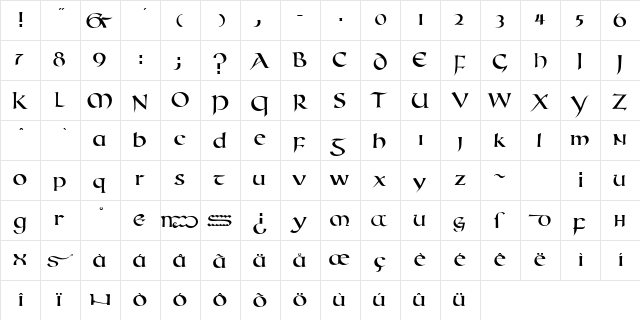
RomanUncialModern Regular
Design Context for RomanUncialModern Typeface
RomanUncialModern takes a measured approach to typography — its balanced proportions and neutral character make it a reliable workhorse for both digital and print work.